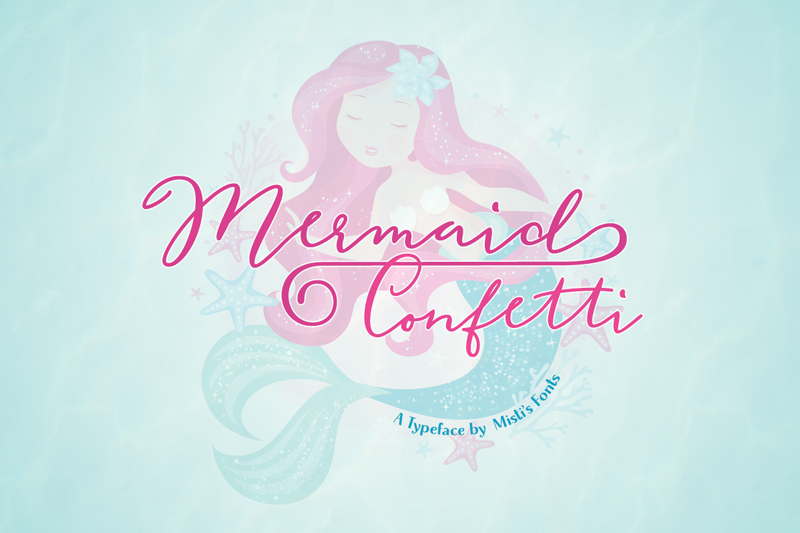
Font name: | Mermaid Confetti |
Mermaid Confetti is a magical script font carefully created with a touch of elegance. Whether you�re looking for fonts for Instagram or calligraphy scripts for DIY projects, this font will turn any creative idea into a true piece of art! Mermaid Confetti is PUA encoded which means you can access all of the glyphs and swashes with ease! Terms Of Use and Commercial Licensing: https://mistifonts.com/mermaid-confetti/ |